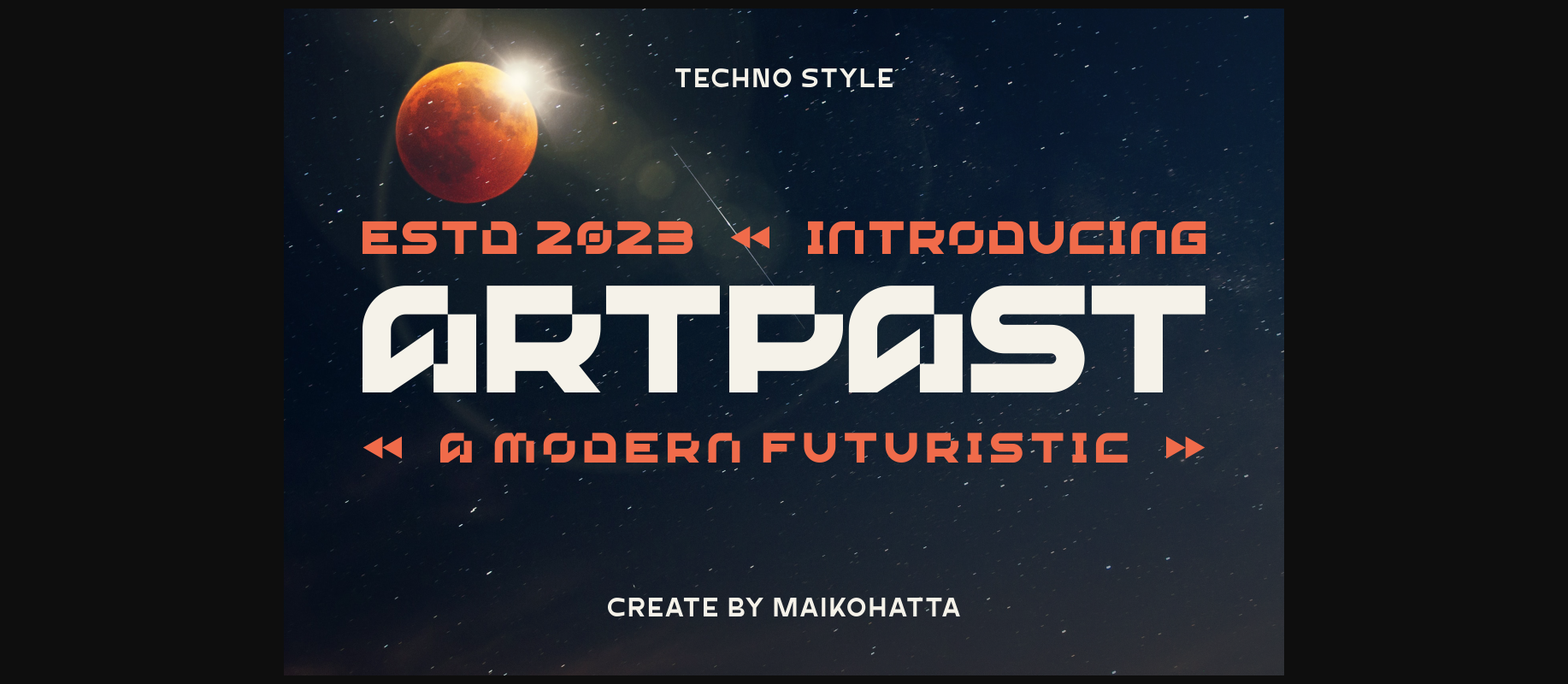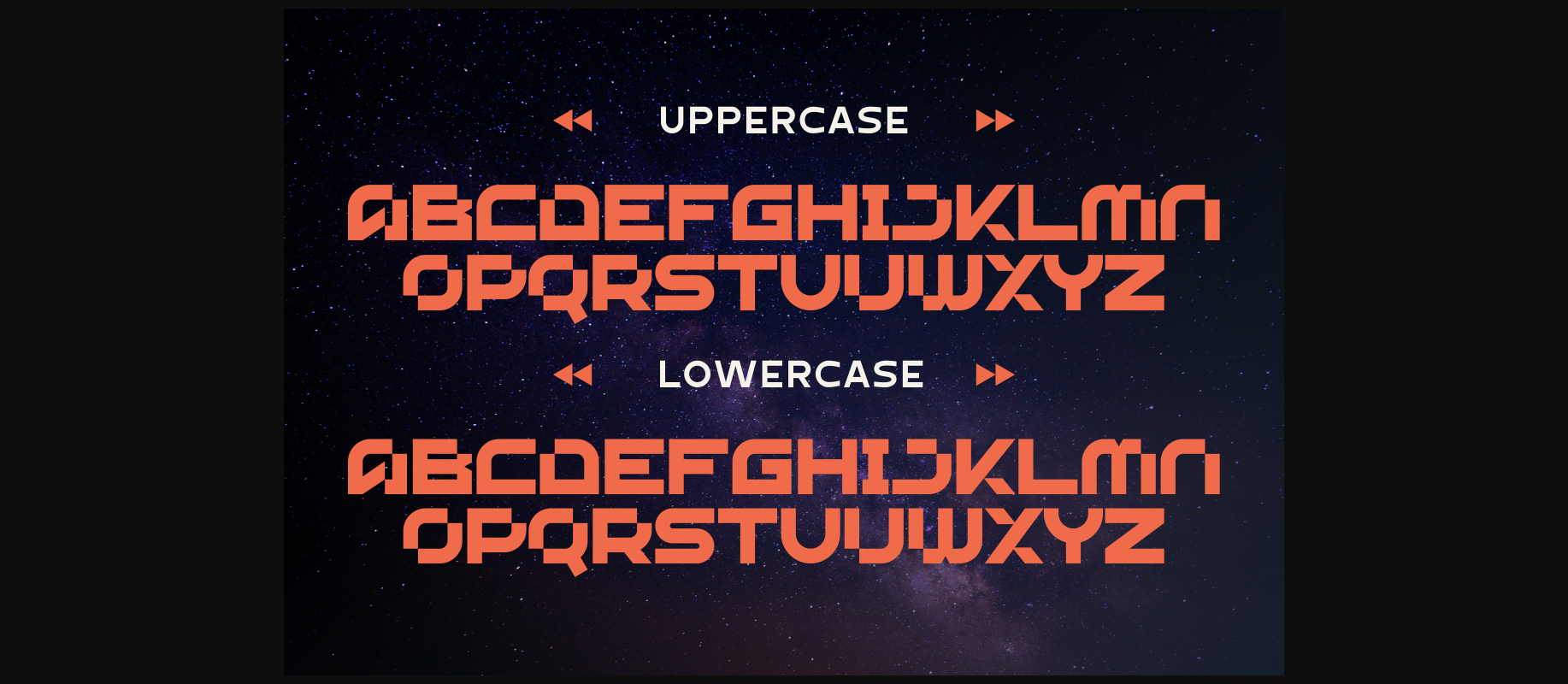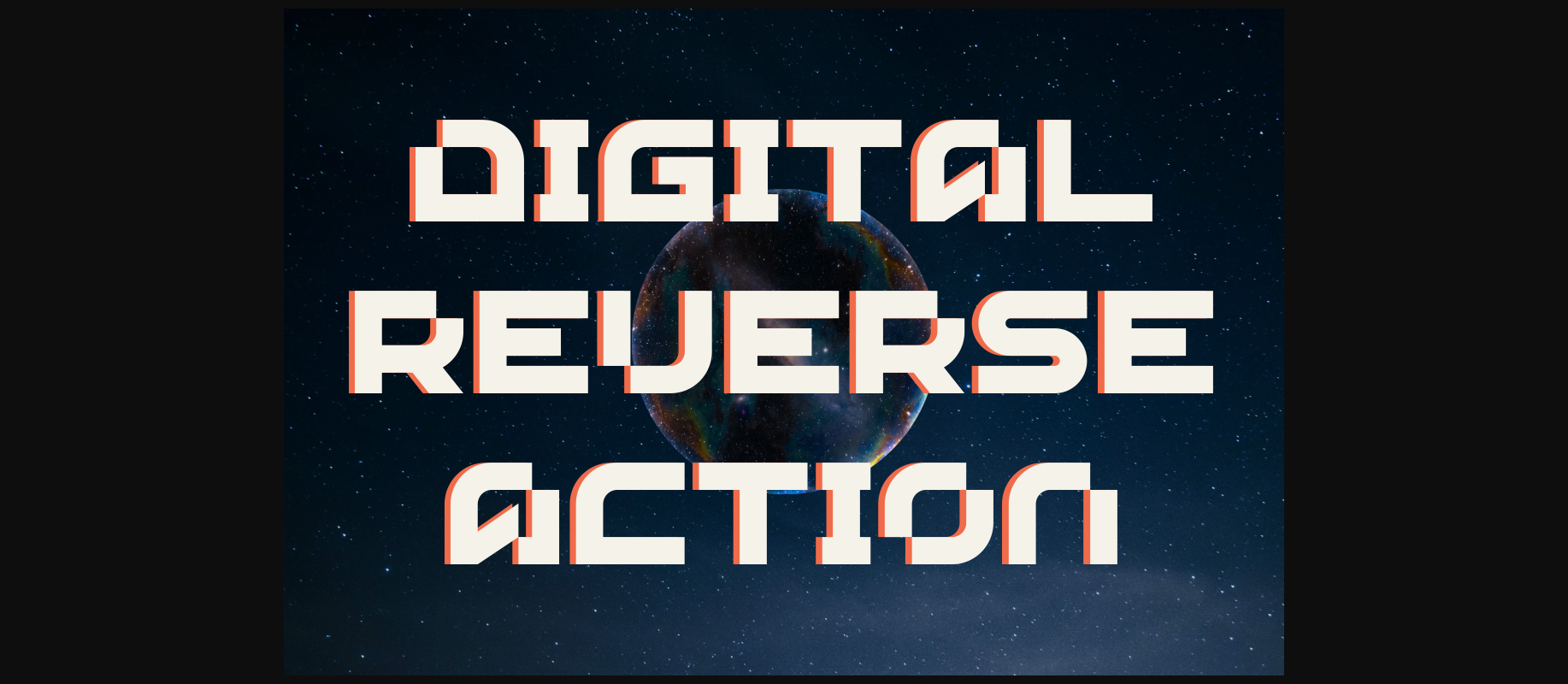
About Artpast Font
Artpast is a display font that features a futuristic design inspired by advanced technology. This font reflects the digital era and technological advancements, bringing a sense of modernity, innovation, and energy to any design. With sharp lines, geometric letter shapes, and futuristic elements, this font is suitable for projects related to technology, robotics, science, and modern lifestyle.